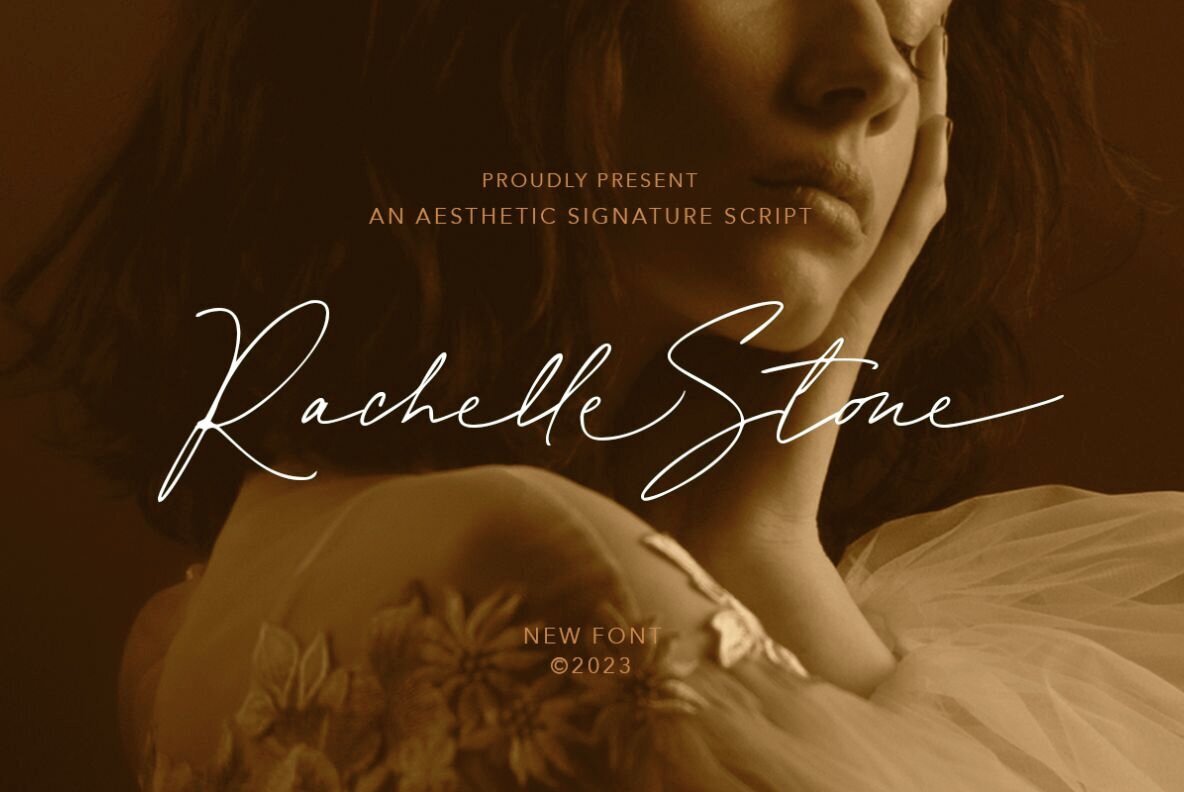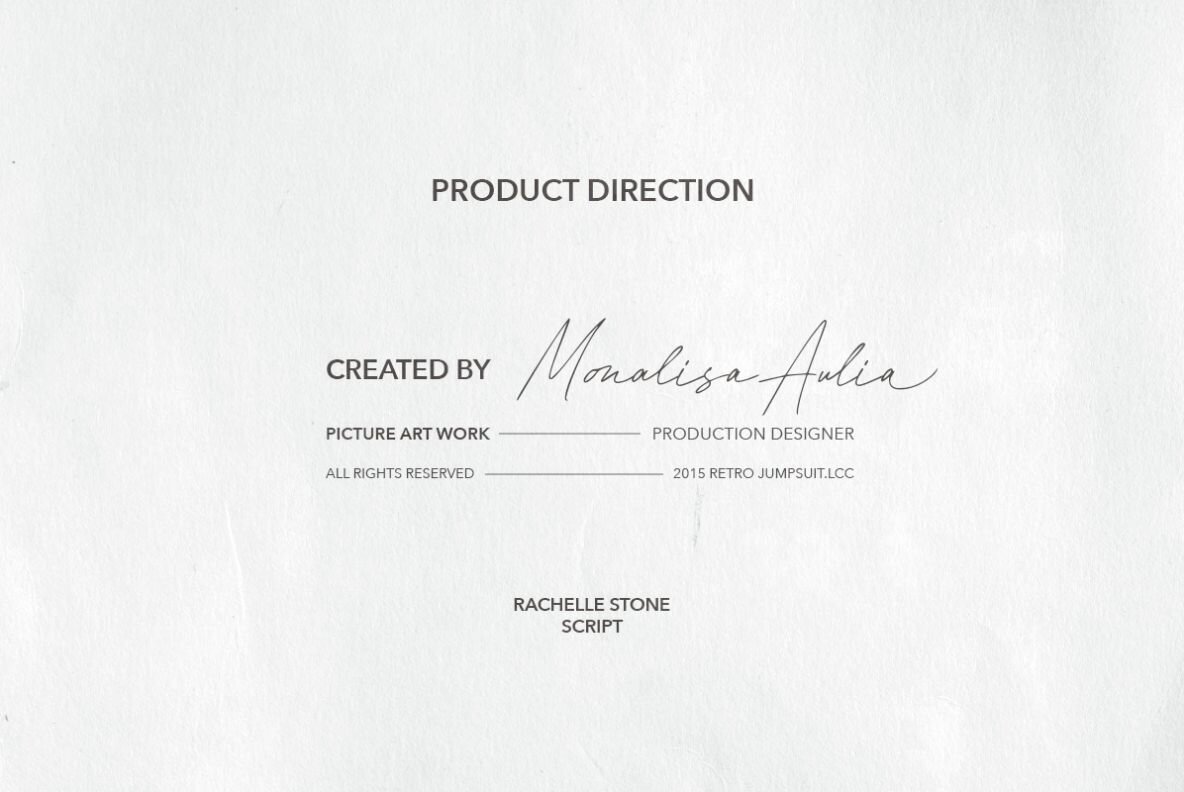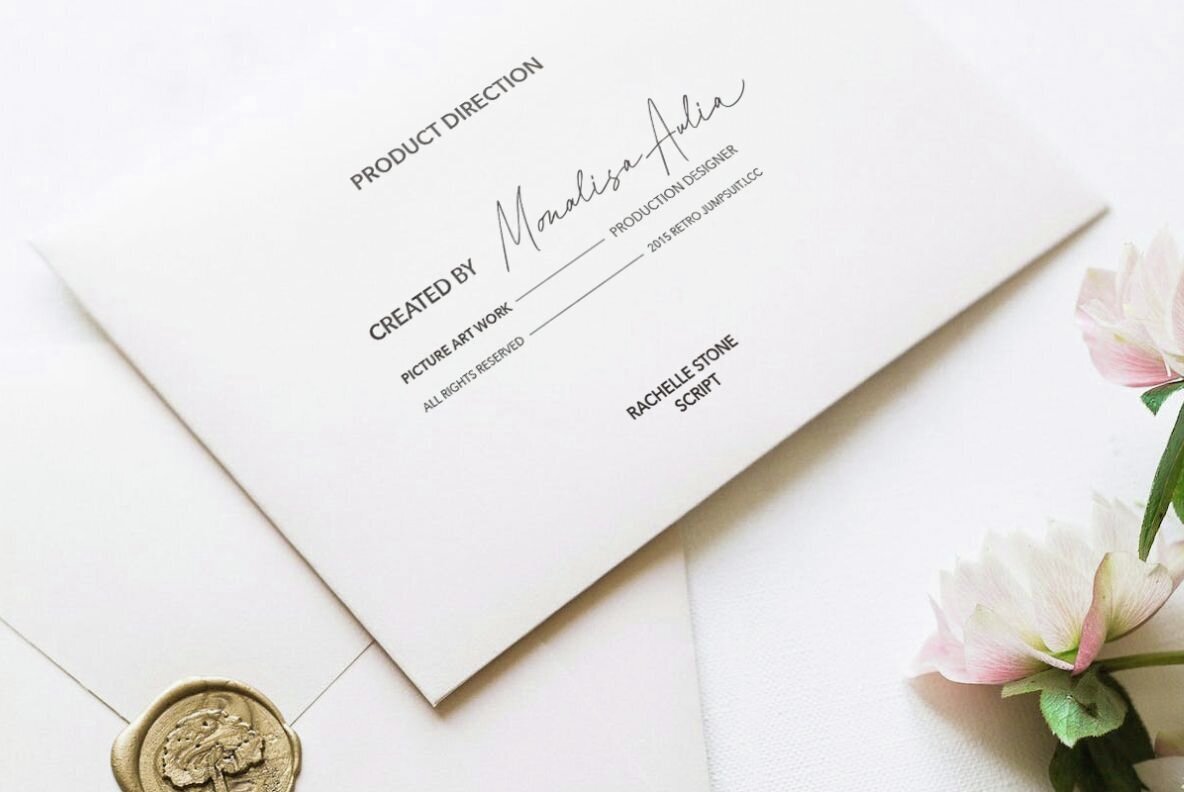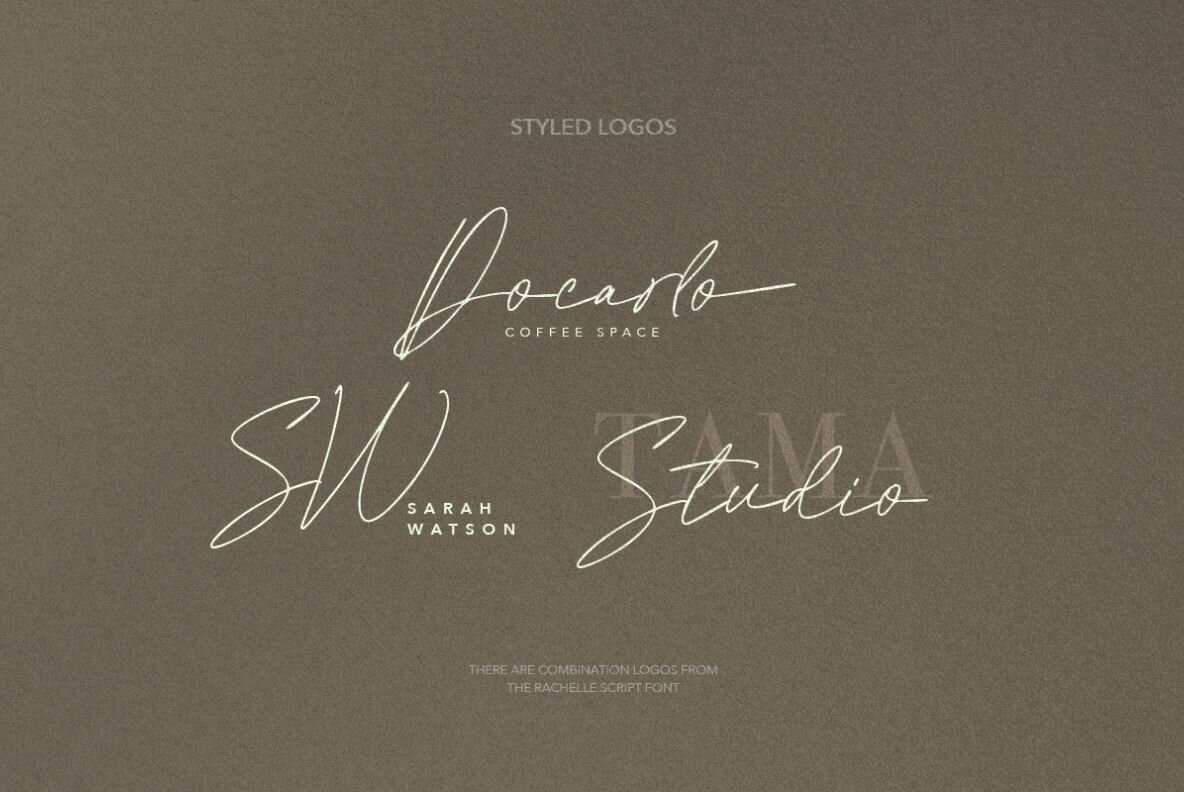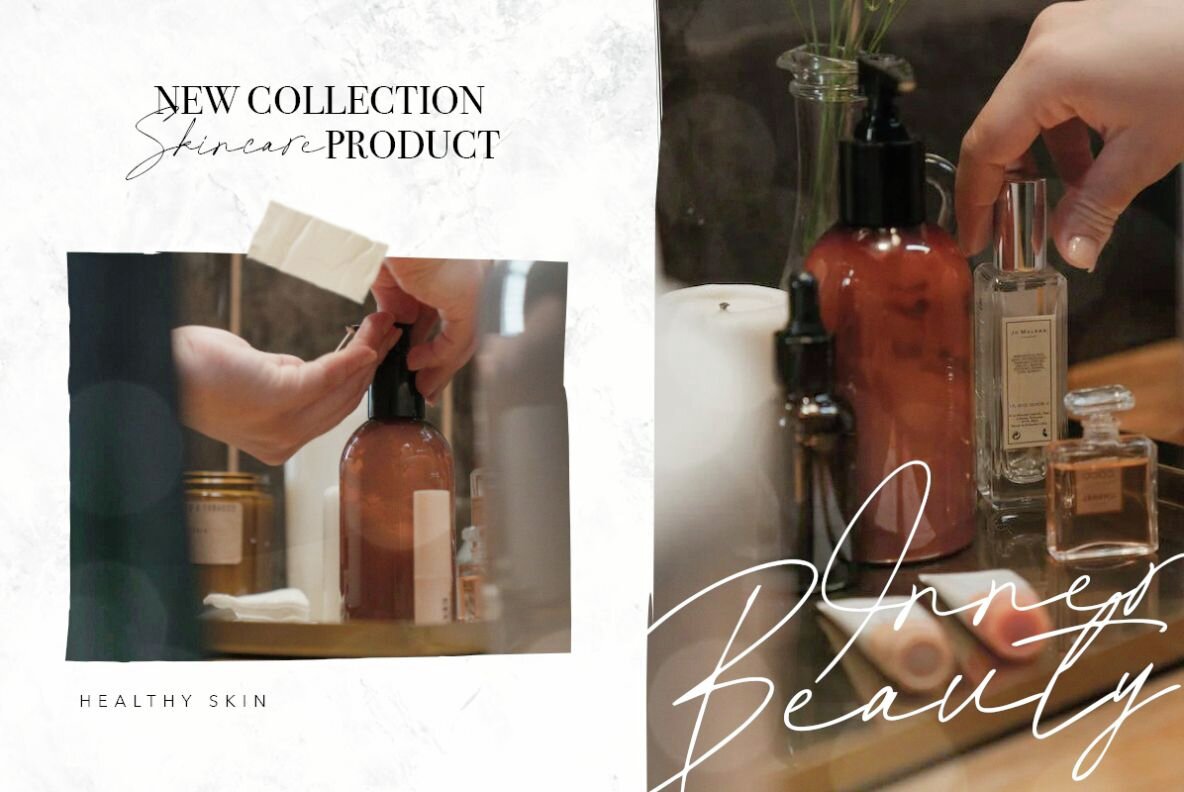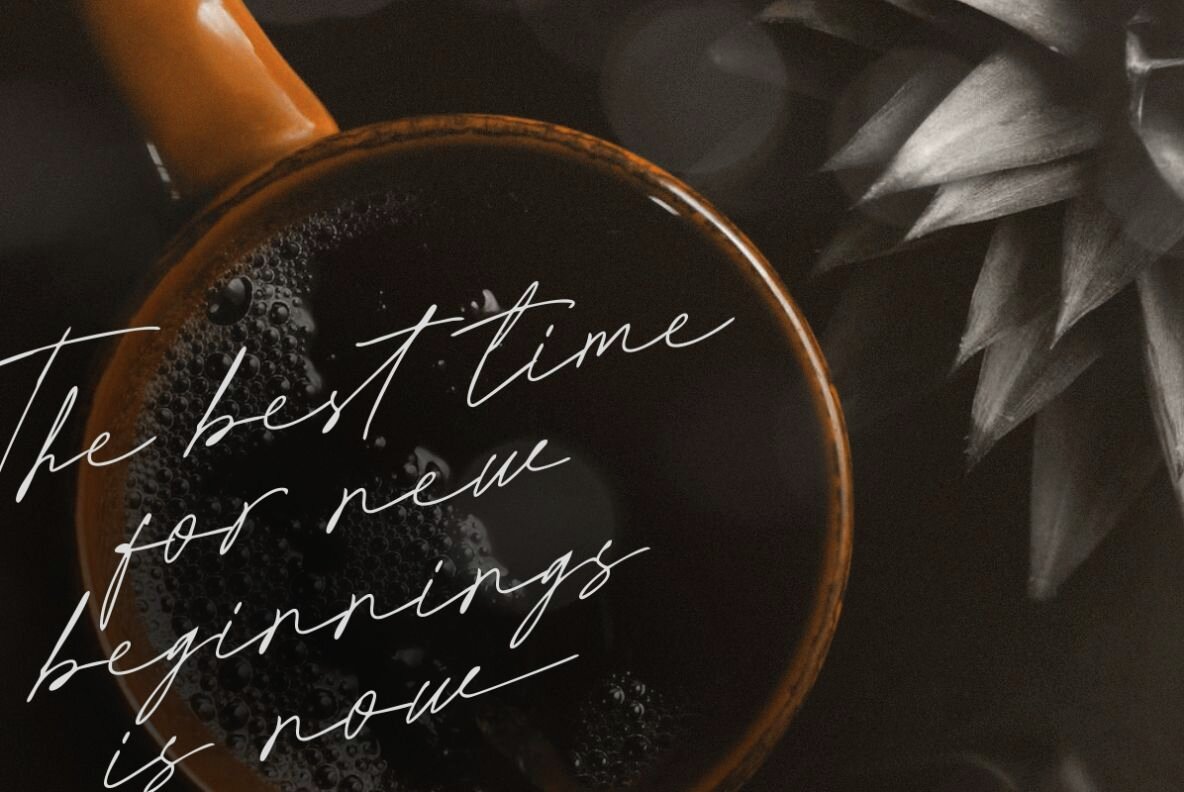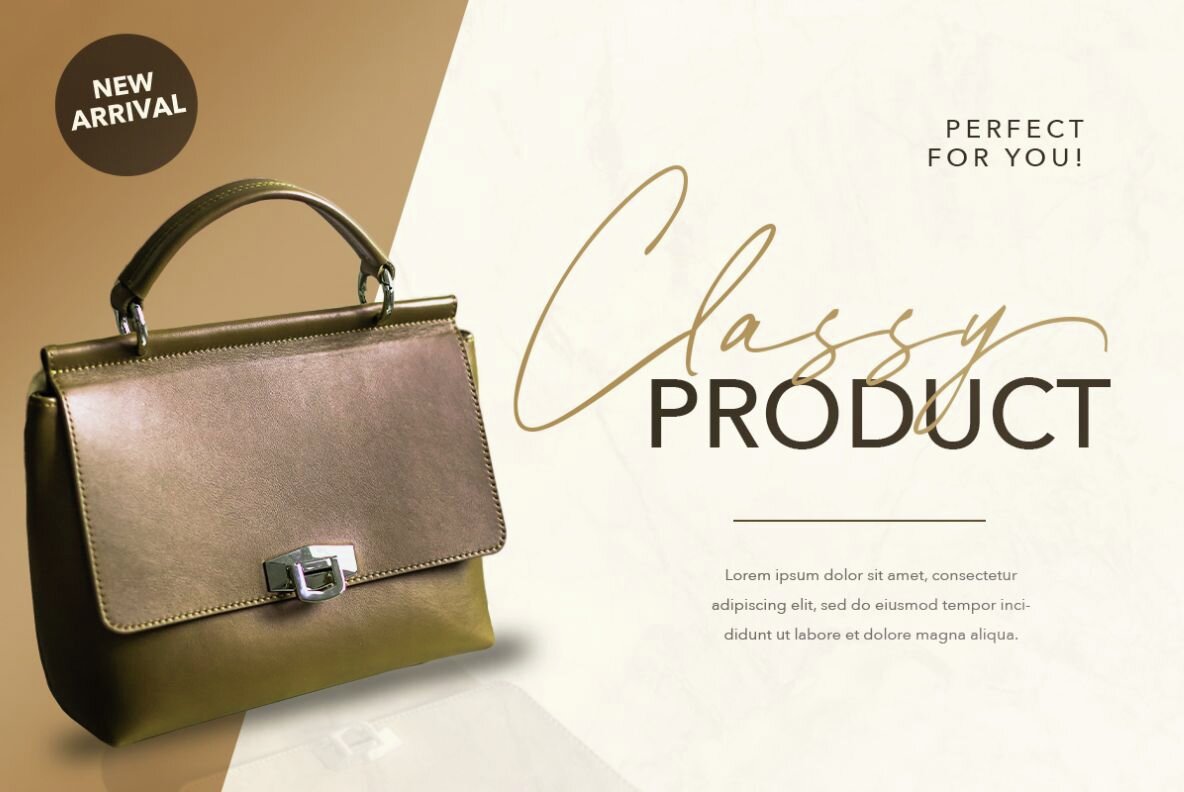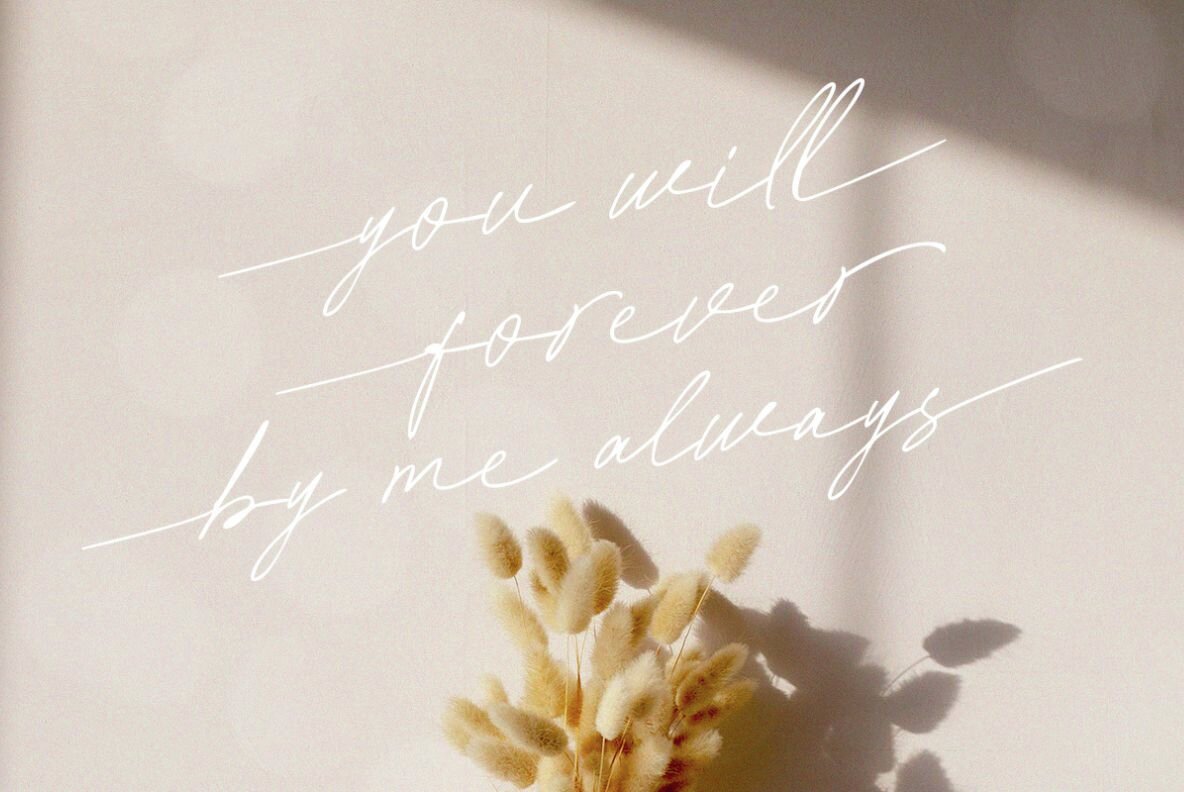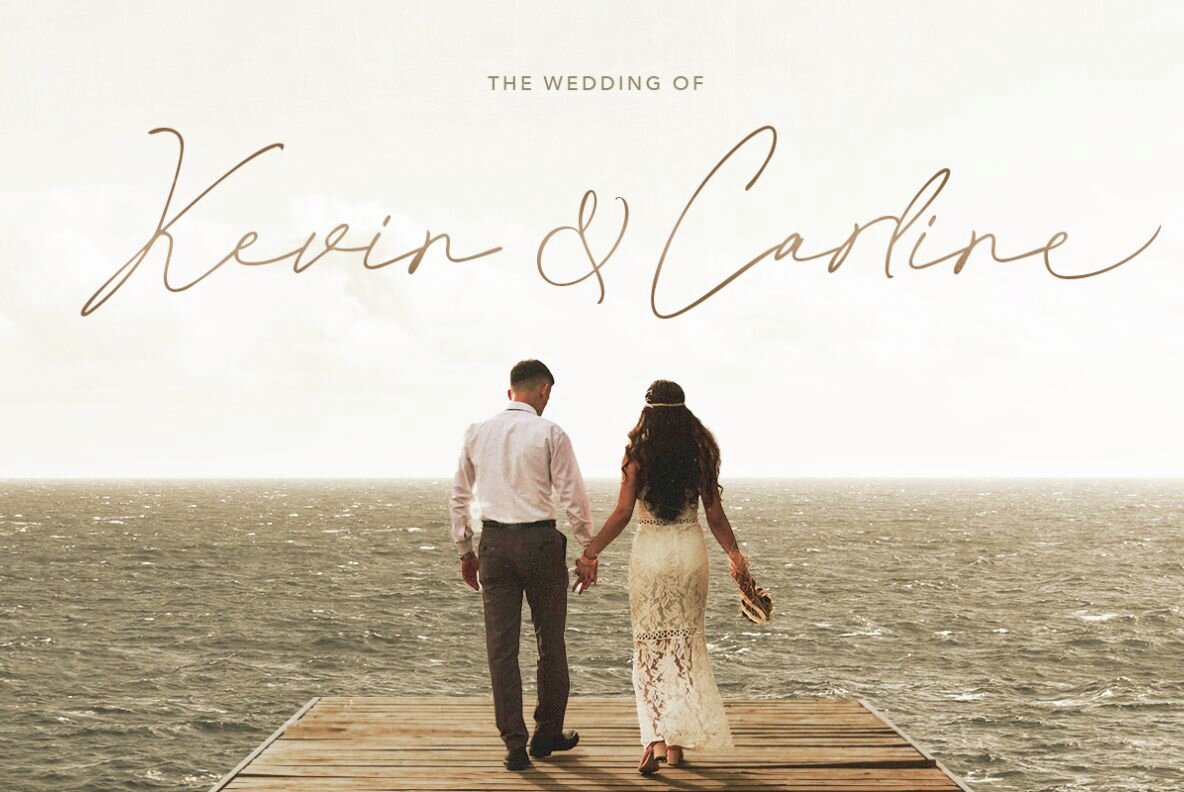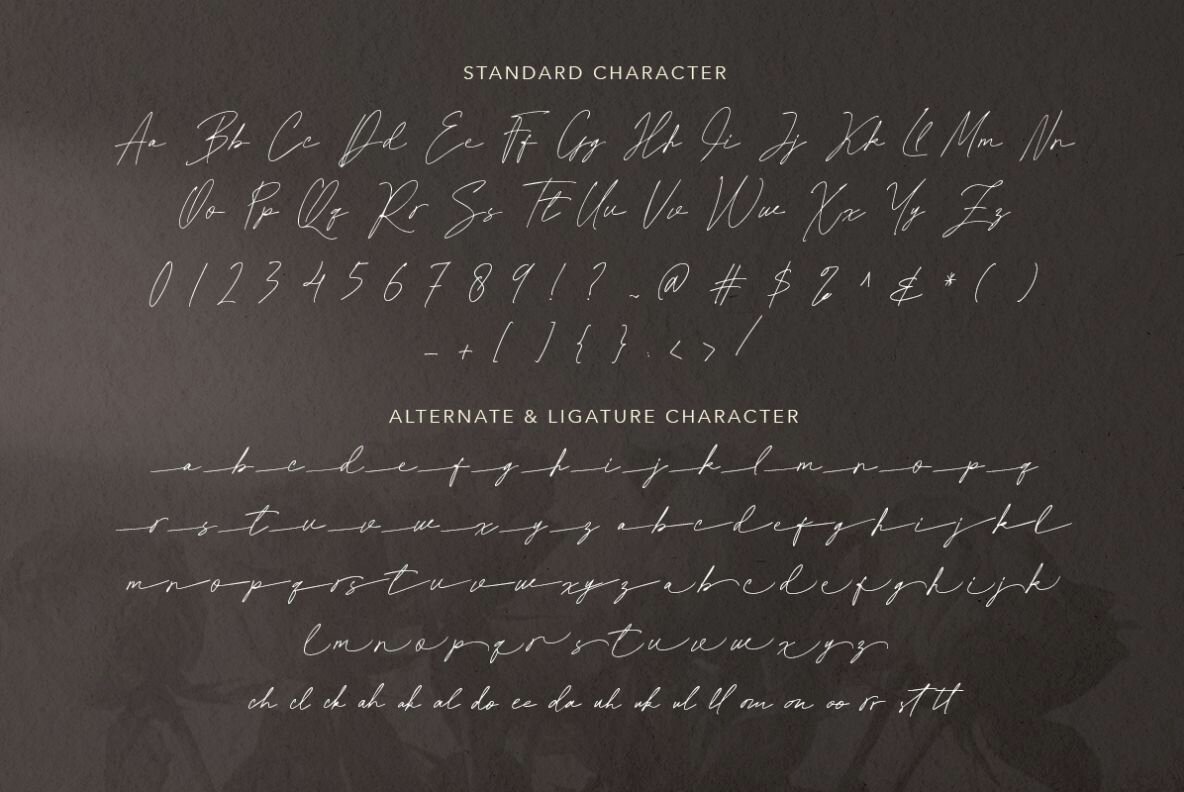
Rachelle Stone Font
Rachelle Stone Regular
Rachelle Stone is an aesthetic script font that have authentic looks for your signature. This font comes with ligatures and alternates that will make your project even more beautiful. With natural looks, you can use this font for any purposes, such as digital signature, logo, branding, quotes, and also for complimentary of your sans or serif font. This font also support multi language!